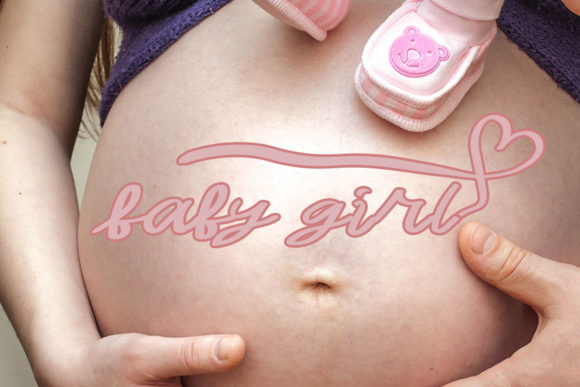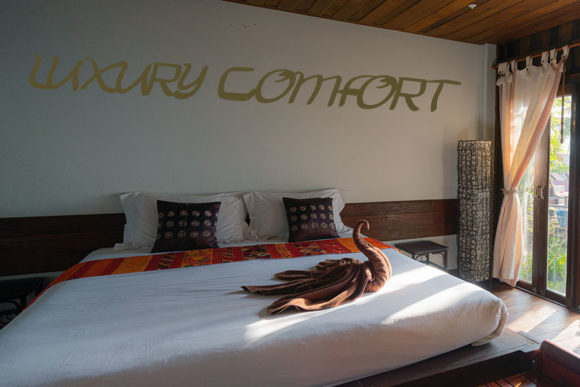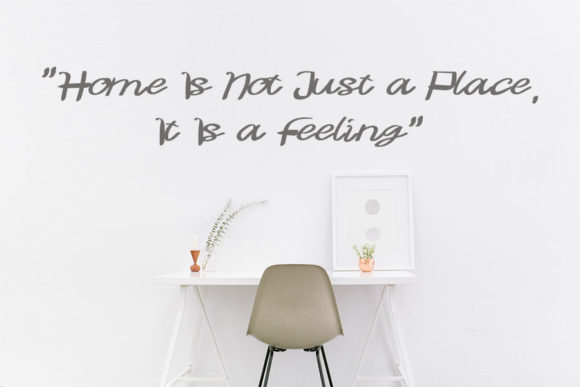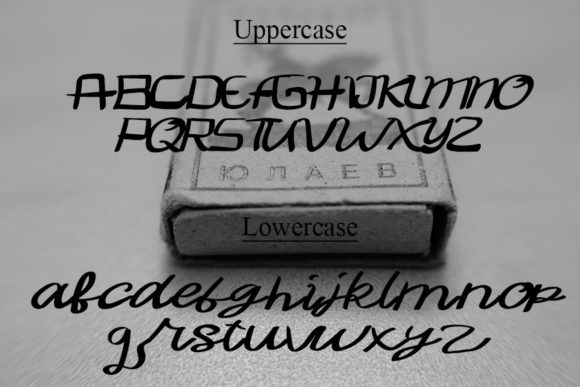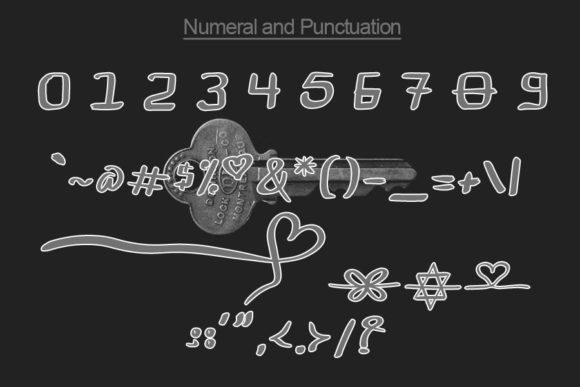
Unlock Your Creativity with the Adorable Font
Have you ever stared at a blank page, your mind racing with ideas, but your words refusing to take shape? It’s a moment we’ve all experienced – a blank slate, a blank mind, and a burning desire to create something truly special. That’s where the Adorable Font comes in – a handwritten font that’s as charming as it is versatile.
Designed to bring your creative ideas to life, the Adorable Font is a true game-changer for designers. Its unique, whimsical style has the power to elevate your designs, making them stand out from the crowd and capture the hearts of your audience. Whether you’re a seasoned pro or a budding artist, this font is a valuable addition to your toolkit.
Key Features of Adorable Font
- Font Family: Adorable Font is a unique, hand-drawn font family consisting of multiple styles, including regular, bold, italic, and bold italic.
- Character Set: The font includes a wide range of characters, including uppercase and lowercase letters, numbers, punctuation marks, and special characters, making it suitable for various design projects.
- Unique Characteristics: The font features a playful, whimsical design with intricate details and textures, making it perfect for creating eye-catching and engaging designs.
Designer Review: Adorable Font
Overall, I’m quite pleased with the Adorable Font. It’s a cute and playful font that’s perfect for creating a whimsical atmosphere in designs. ✨ The font’s rounded edges and childlike feel make it ideal for children’s books, nursery decorations, or any project that requires a touch of sweetness.
Here are some of its strengths:
- ✨ Beautifully rounded edges that add a sense of friendliness
- ✨ Perfect for creating a nostalgic or vintage feel
- ✨ Highly legible, even at small font sizes
- ⚠️ The font may not be suitable for formal or professional designs
- ⚠️ Limited character set and language support
- ⚠️ May not be as versatile as other fonts in terms of font weights and styles
Overall, I think Adorable Font is a great choice for designers who want to add a touch of whimsy to their projects. While it may not be suitable for all types of designs, it’s a great addition to any font library. With a little creativity, you can use this font to create some truly adorable designs.
Adorable Font is perfect for creating designs that are playful, whimsical, and fun. Some common use cases include:
– Children’s party invitations
– Branding materials for small businesses